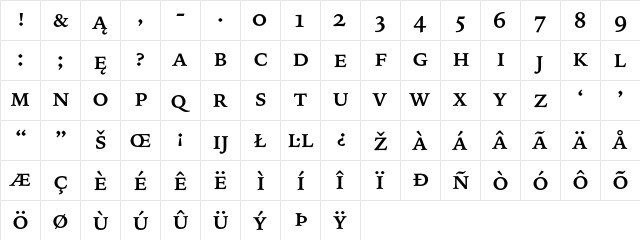
Bitstream Iowan Old Style Bold Small Cap
Design Context for Bitstream Iowan Old Style Typeface
Bitstream Iowan Old Style takes a measured approach to typography — its balanced proportions and neutral character make it a reliable workhorse for both digital and print work. The heavy weight commands attention and anchors typographic hierarchies.
Pro Tip: Use Bitstream Iowan Old Style in both headline and body roles to test its range before committing to a single application.